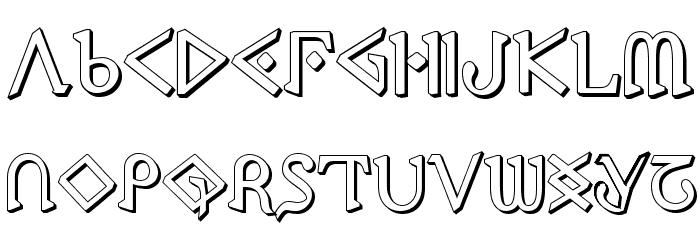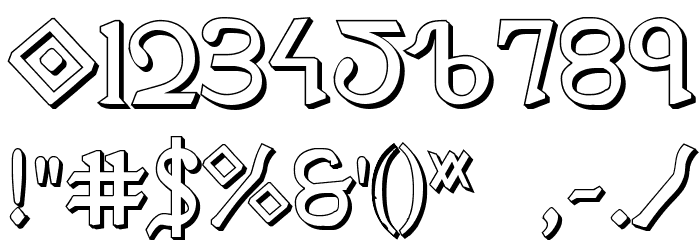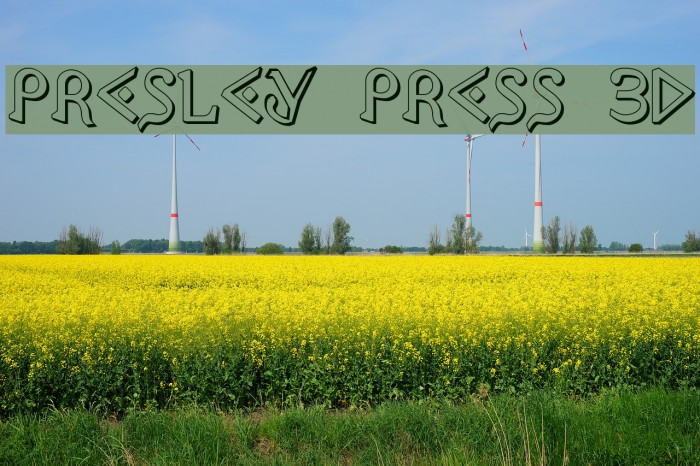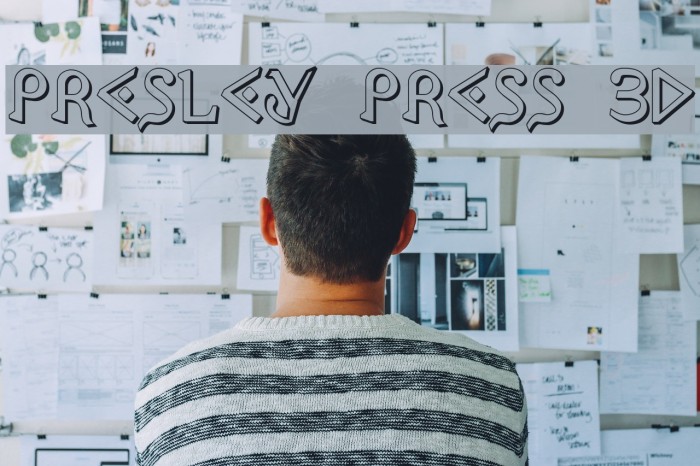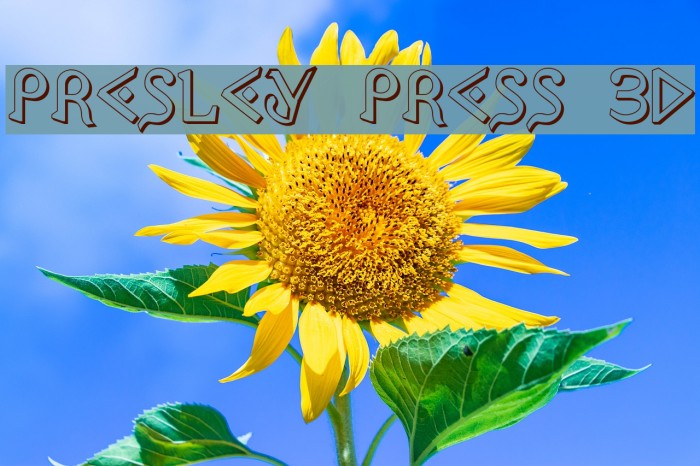
Presley Press 3D Font
This font features a bold, geometric 3D style with a distinct outline that gives each character a shadowed effect. The uppercase and lowercase letters share a consistent design, with angular and sharp edges that create a modern and futuristic appearance. The numbers and special characters maintain this aesthetic, ensuring uniformity across all elements. The font's unique structure makes it stand out, with each character having a strong presence due to the three-dimensional illusion created by the shadowing. This design is particularly eye-catching and can add a dynamic element to any project.
A bold, geometric 3D font with sharp edges and a shadowed outline.
- Proposed Projects: Ideal for posters, video game graphics, sci-fi themed projects, and branding that requires a modern and dynamic look.